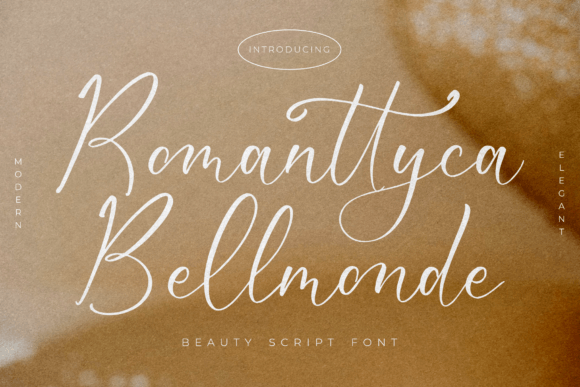
Unleash your creativity with Romanttyca Bellmonde, a remarkable script font engineered by Storytype Studio. This font exudes elegance and a dash of modern flair, making it an ideal choice for those seeking a signature touch in their designs.
Picture this: a logo that radiates sophistication, a book or movie title that captivates with its graceful curves, or a fashion brand that leaves a lasting impression. Romanttyca Bellmonde is your golden ticket to creating designs that speak volumes.
Explore a world of possibilities with this versatile font. Whether you're designing for print or digital platforms, Romanttyca Bellmonde seamlessly adapts, adding an air of luxury and charm to your projects. Its carefully crafted characters dance across the page, evoking a sense of timeless beauty.
Join the ranks of creative visionaries who have harnessed the power of Romanttyca Bellmonde to elevate their designs. Let your imagination soar as you create logos that command attention, book covers that entice readers, and fashion designs that turn heads.